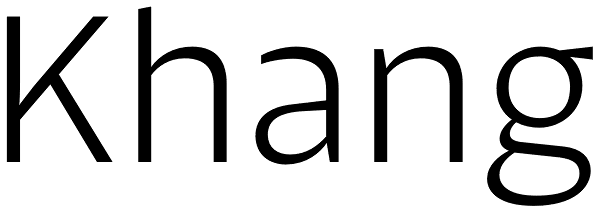
Khang
Khang is a sans serif family that is part of Shiva Nalleperumal’s investigations into monolinearity in type design. In this typeface, he fuses a monolinear sans’s structure with a kind of stroke modulation more common to broad-nib calligraphy. The...